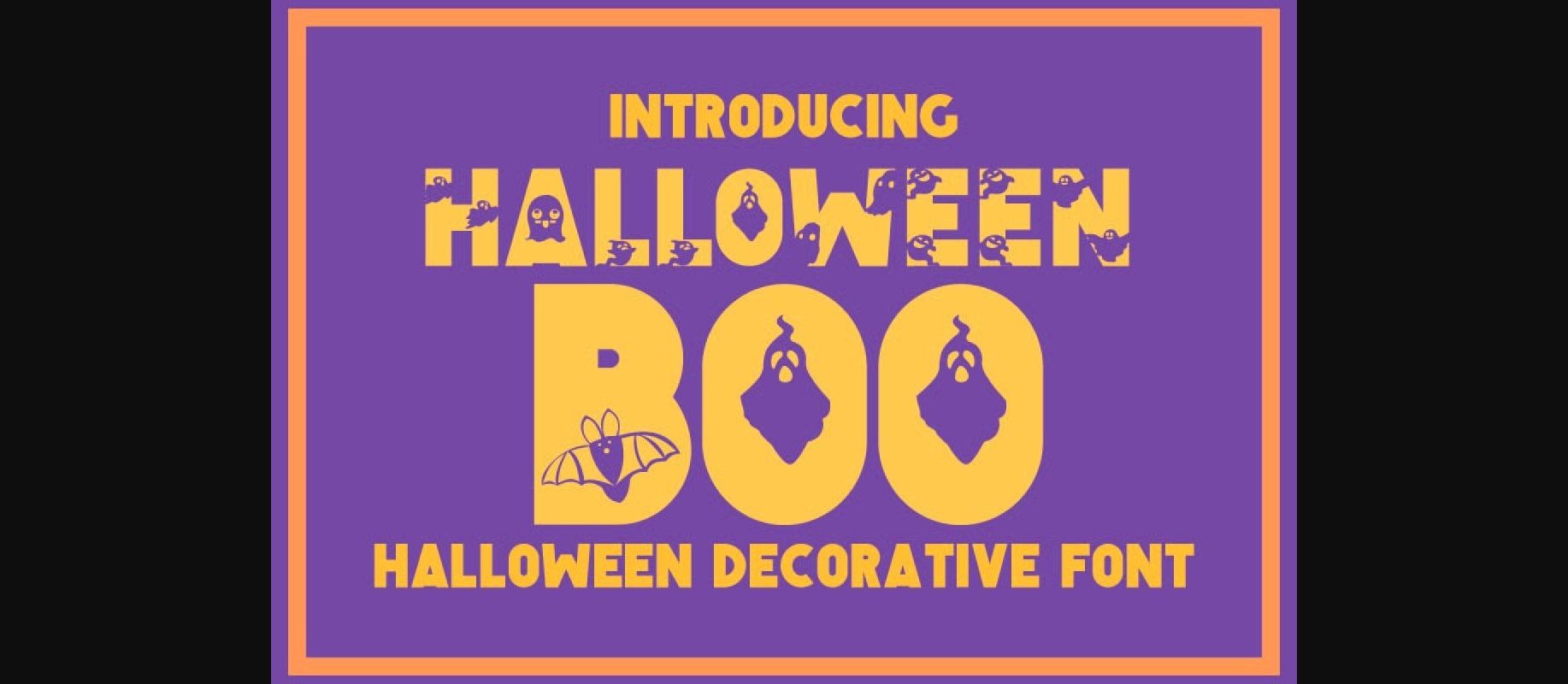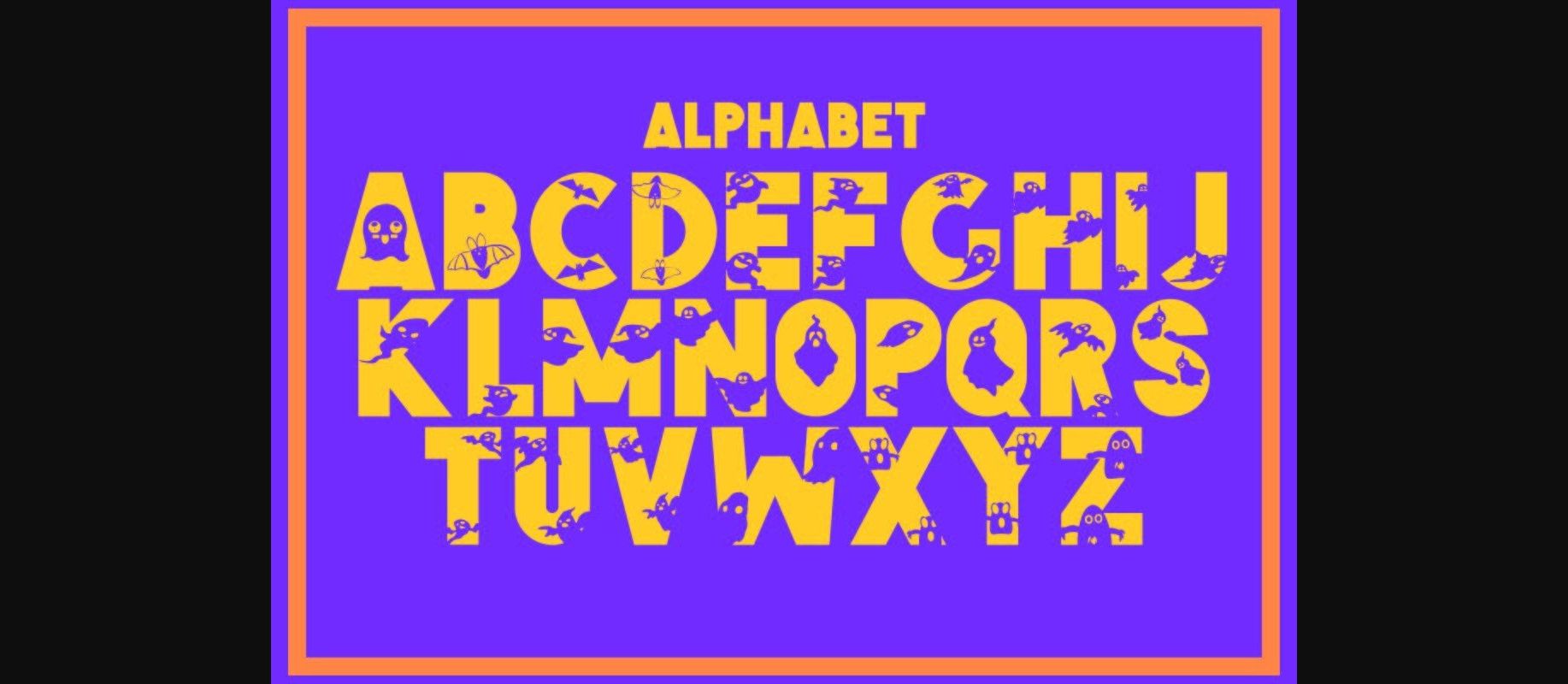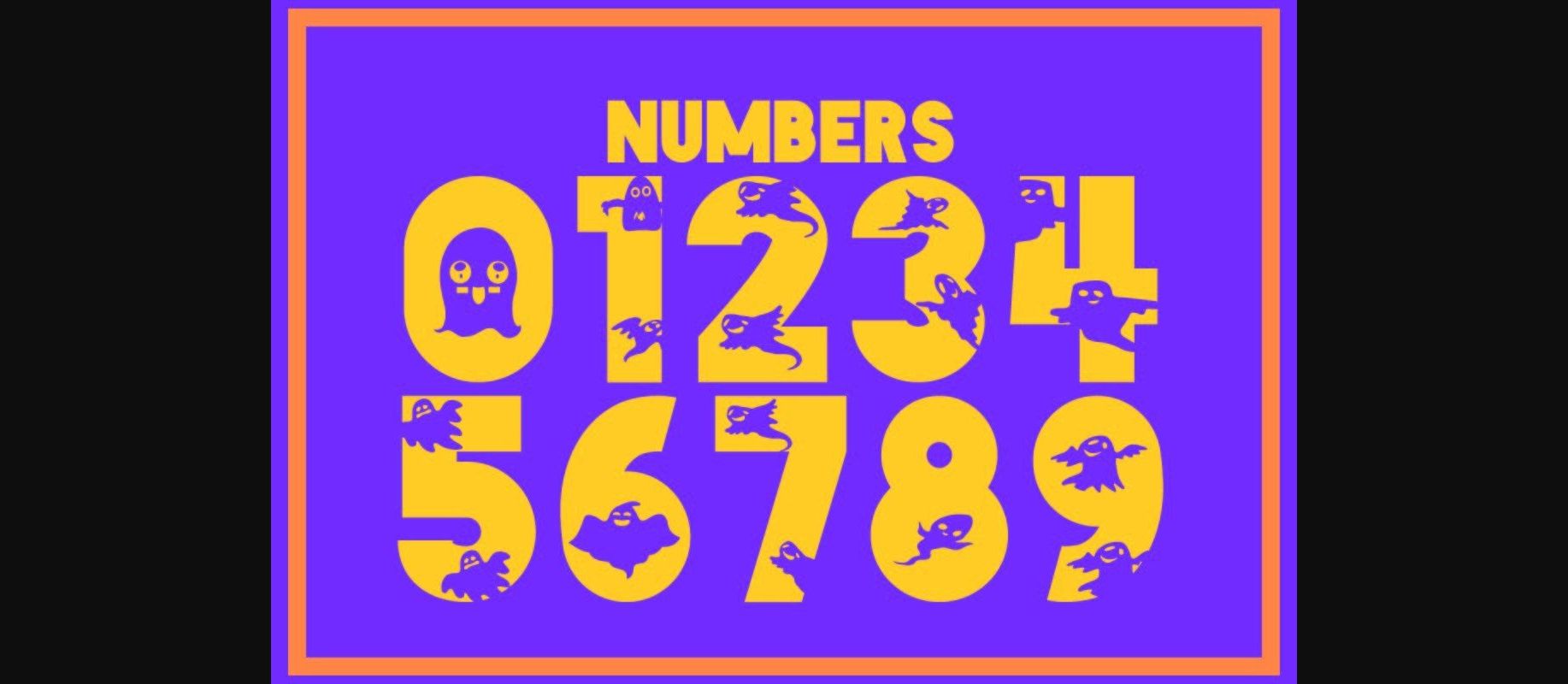
HomeDecorative FontsHalloween Boo Font Decorative Fonts Halloween Boo Font FacebookXPinterestWhatsApp 1 of 5 ... Halloween Boo Font Poster 2... Halloween Boo Font Poster 3... Halloween Boo Font Poster 4... Halloween Boo Font Poster 5... About Halloween Boo Font Halloween Boo is a fun and dramatic decorative display font. Add it to your October Halloween party designs and notice how it makes them stand out! DOWNLOAD NOW People also explored Pigalle Swing Steinweiss Script Pink Tulip Font Moody Font Business Font Gerlach Sans Font Eldra Font The Coffee Font Aghnesta Trio Font 250 0 TagsHalloween Boo Font Previous articleTwisting Lasso FontNext article‪Christmas Jolly‬ Font LEAVE A REPLY Cancel reply Comment: Please enter your comment! Name:* Please enter your name here Email:* You have entered an incorrect email address! Please enter your email address here Website: Save my name, email, and website in this browser for the next time I comment. Personal Use Free Indonesia Dermawan Personal Use Free Read more about this font Rosebirth Personal Use Free Read more about this font Mellow Personal Use Free Read more about this font Pouline Personal Use Free Read more about this font BLOG Top 7 Google Fonts Alternatives for Faster and Privacy-Friendly Web Design (2025) Top 7 Google Fonts Alternatives for Faster and Privacy-Friendly Web Design (2025) When it comes to web typography, Google Fonts has long been the go-to... The 10 Best Handwriting Fonts to Add Personality to Your Designs Using Fonts in Digital Marketing: Tips to Strengthen Your Brand Identity Best Fonts for YouTube Videos: Make Your Thumbnails Stand Out